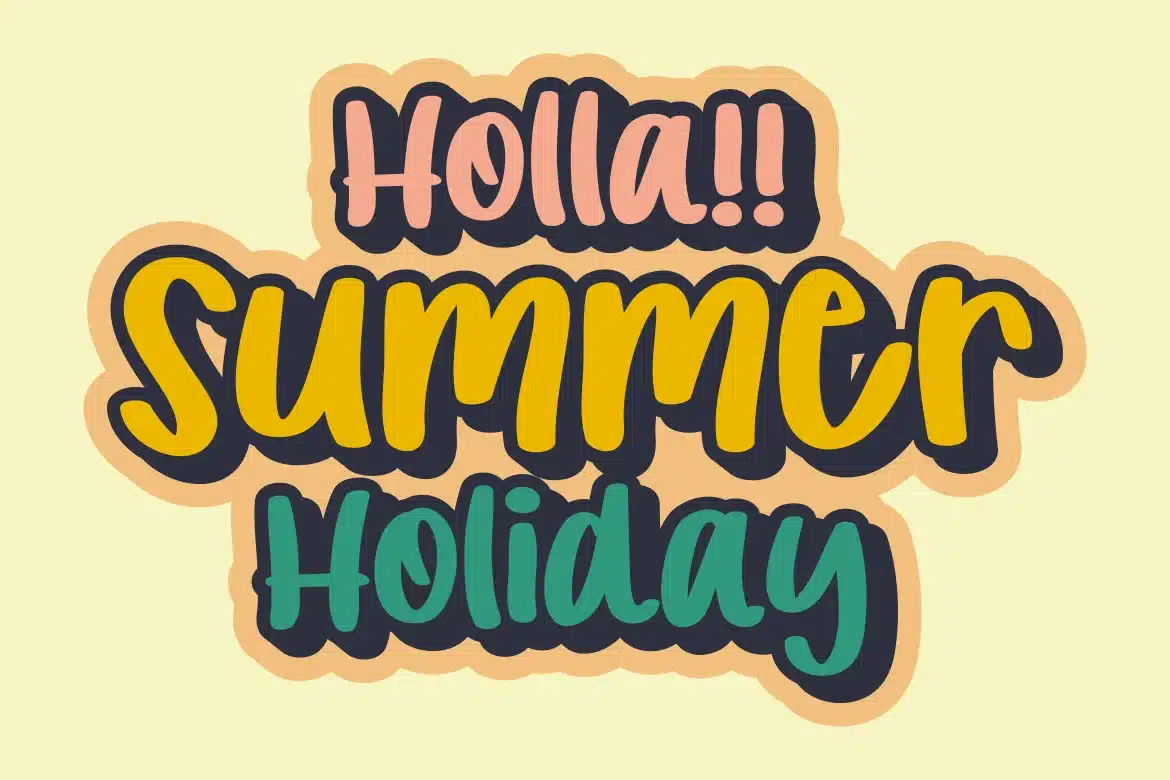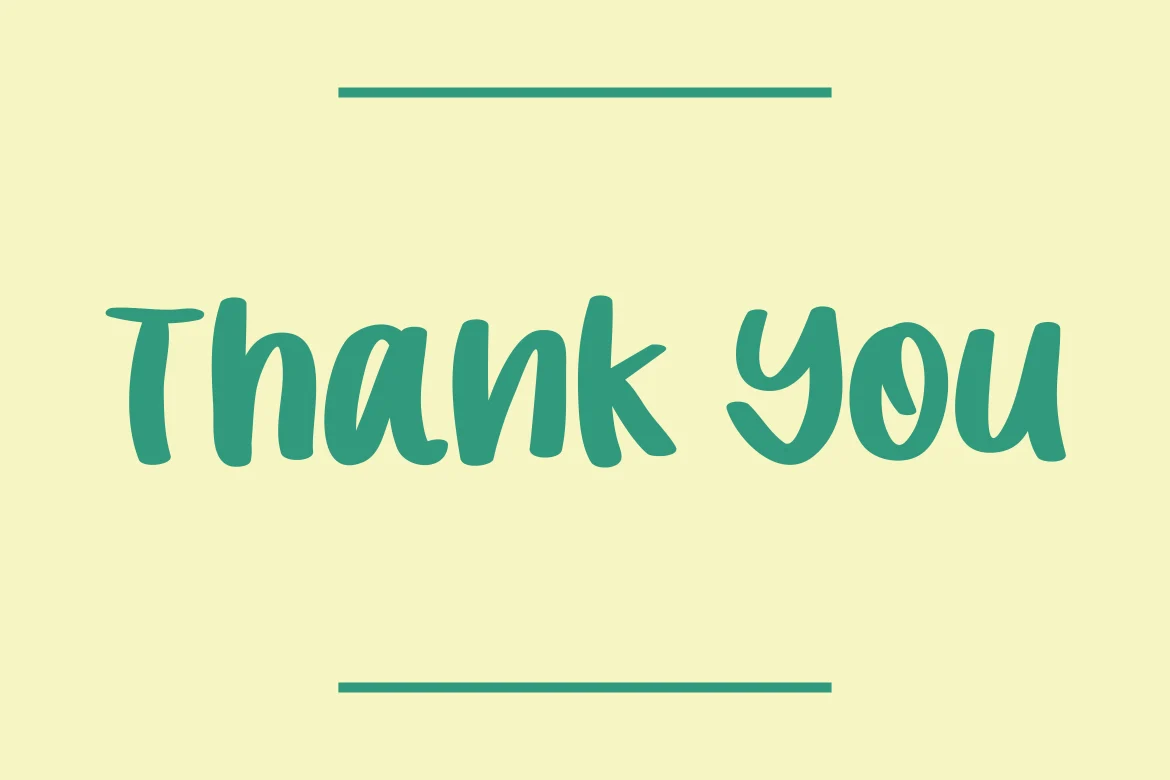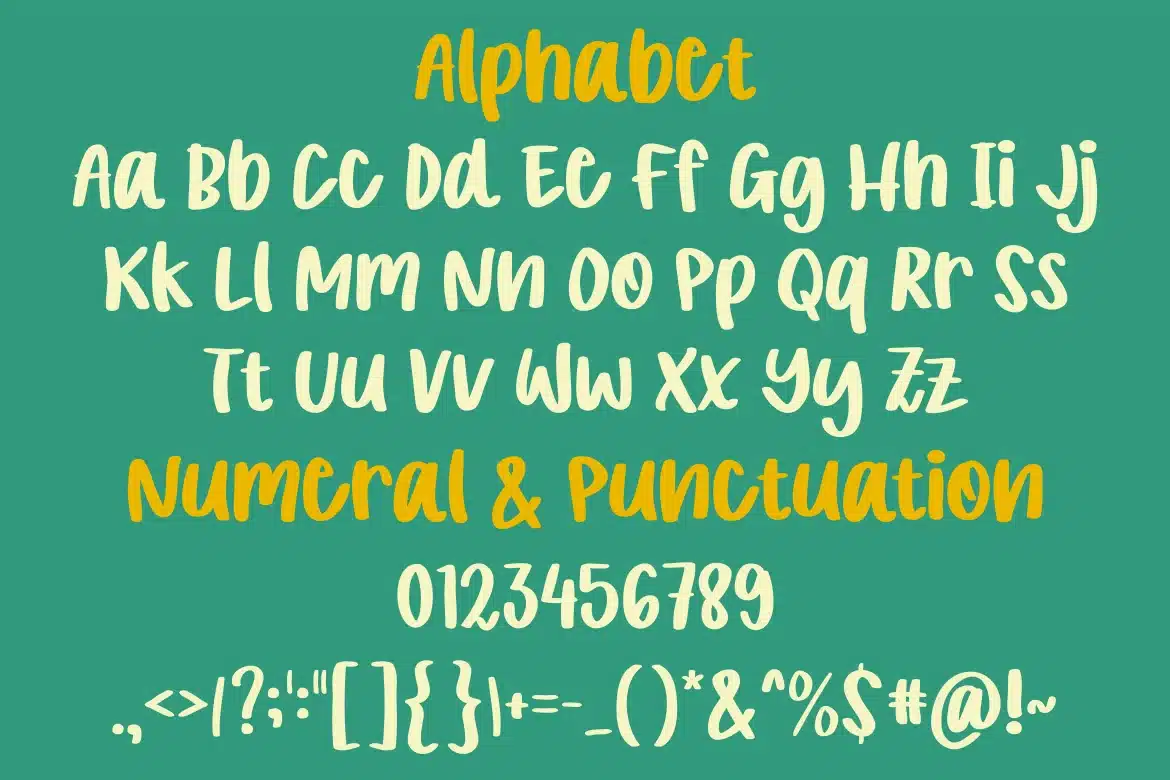
Chuckle Comic Font** - Modern Font is a bold and authentic display font. The font is suitable for any branding project like logo, t-shirt printing, Product and many more. outstanding in a wide range of contexts.